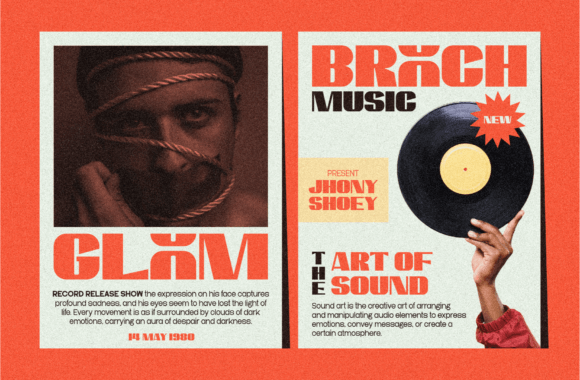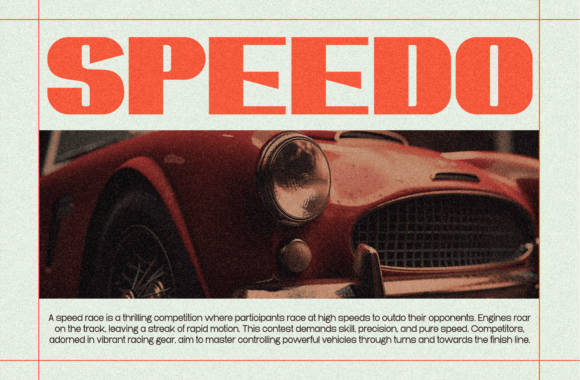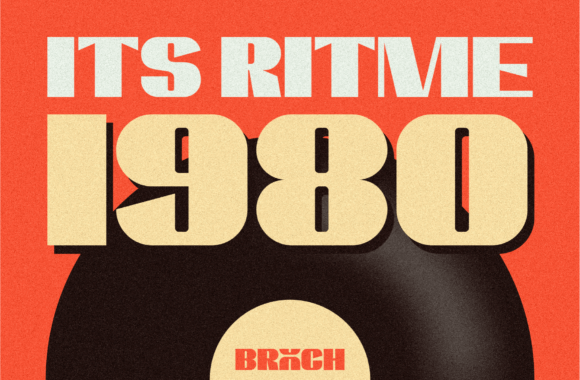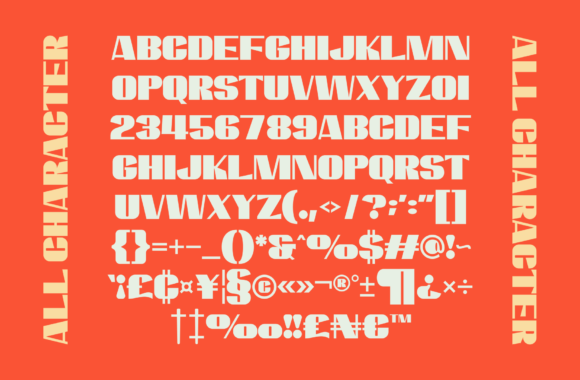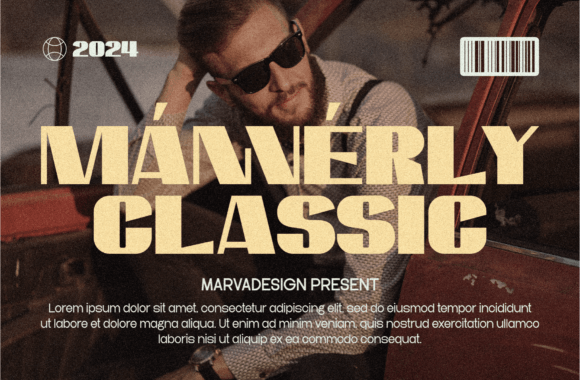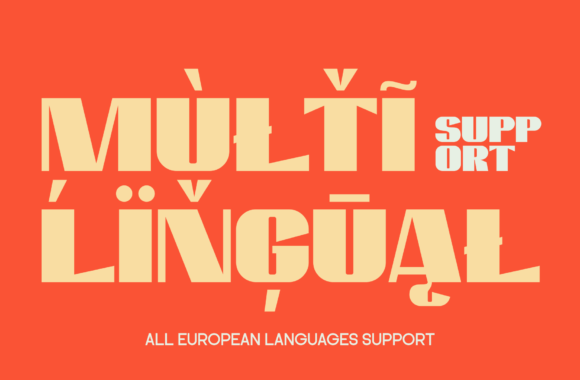
Introducing Brooch Font: A Retro Display Sans for Eye-Catching Designs
In the world of typography, fonts play a crucial role in conveying the tone and aesthetic of a design. For designers and crafters looking to add a touch of nostalgia to their work, the Brooch Font is an excellent choice. This stylish and bold font is inspired by old-fashioned designs, making it perfect for creating eye-catching titles, posters, and signs.
The Charm of Brooch Font
Brooch – a Retro Display Sans is a font that seamlessly blends simplicity with vintage charm. The letters are clean and straightforward, yet they exude a nostalgic feel that is hard to resist. This unique combination makes the Brooch Font an excellent choice for designers who want to add a touch of retro flair to their work.
Key Features of Brooch Font
- Stylish and Bold: The Brooch Font is designed to make a statement. Its bold and stylish letters are perfect for creating eye-catching titles and headings.
- Retro Inspiration: Inspired by old-fashioned designs, the Brooch Font brings a touch of nostalgia to your work.
- Clean and Simple: Despite its vintage inspiration, the Brooch Font features clean and simple lettering, making it easy to read and understand.
- Vintage Feel: The font’s vintage feel adds a unique charm to your text, making it stand out from the crowd.
Uses of Brooch Font
The Brooch Font is versatile and can be used in a variety of design projects, including:
- Posters: Create eye-catching posters for events, promotions, or announcements.
- Signs: Use the Brooch Font to create bold and stylish signs for businesses, events, or exhibitions.
- Titles: Add a touch of nostalgia to your titles and headings with the Brooch Font.
- Logos: The Brooch Font can also be used to create unique and stylish logos for businesses or brands.
Why Choose Brooch Font?
With so many fonts available, why choose the Brooch Font? Here are a few reasons:
- Unique Style: The Brooch Font offers a unique blend of simplicity and vintage charm, making it stand out from other fonts.
- Ease of Use: The font is easy to read and understand, making it perfect for a wide range of design projects.
- Customization: The Brooch Font can be customized to fit your design needs, allowing you to create unique and personalized designs.
Tips for Using Brooch Font
To get the most out of the Brooch Font, here are a few tips:
- Pair with Other Fonts: Pair the Brooch Font with other fonts to create a unique and visually appealing design.
- Use for Headings: Use the Brooch Font for headings and titles to add a touch of nostalgia and create visual interest.
The Brooch Font is a stylish and bold font that is perfect for designers and crafters looking to add a touch of nostalgia to their work. With its unique blend of simplicity and vintage charm, the Brooch Font is an excellent choice for creating eye-catching titles, posters, and signs. Whether you’re a designer or crafter, the Brooch Font is a great addition to your typography collection.